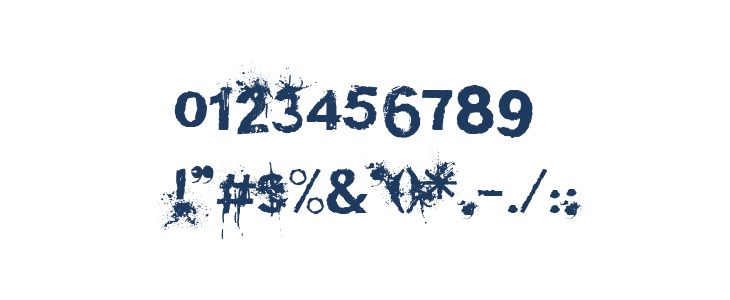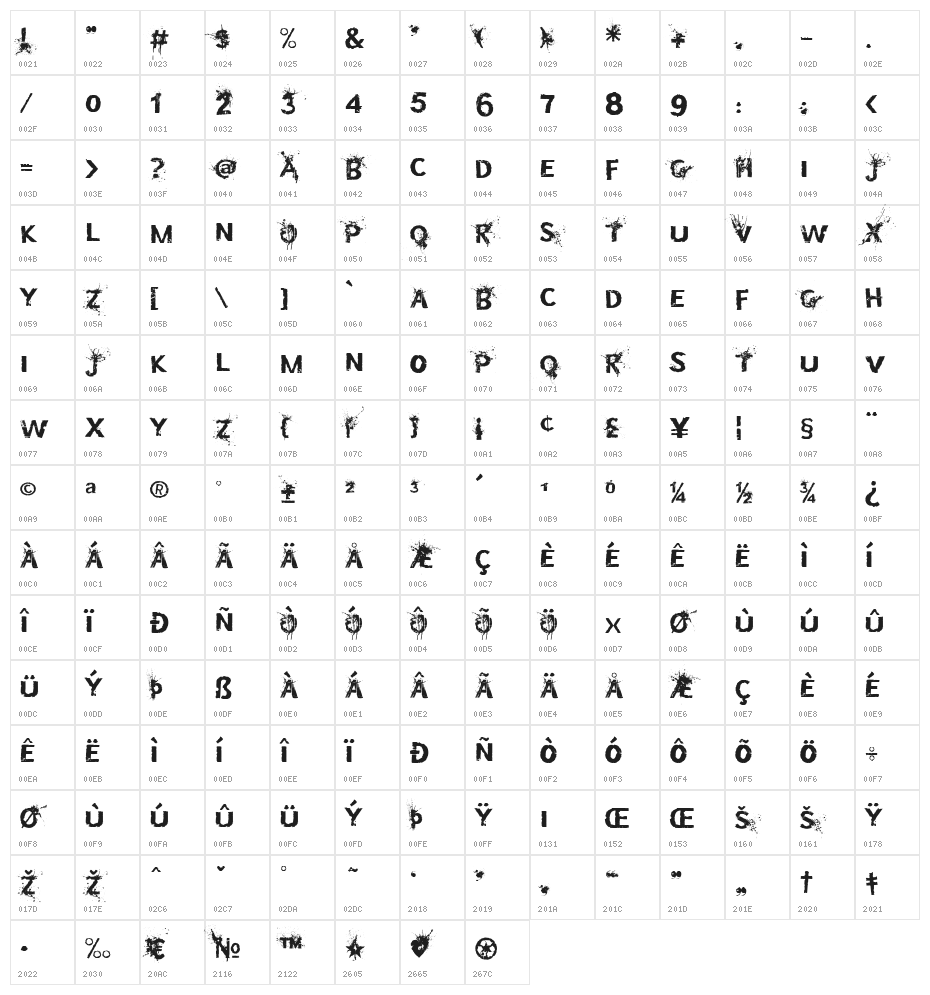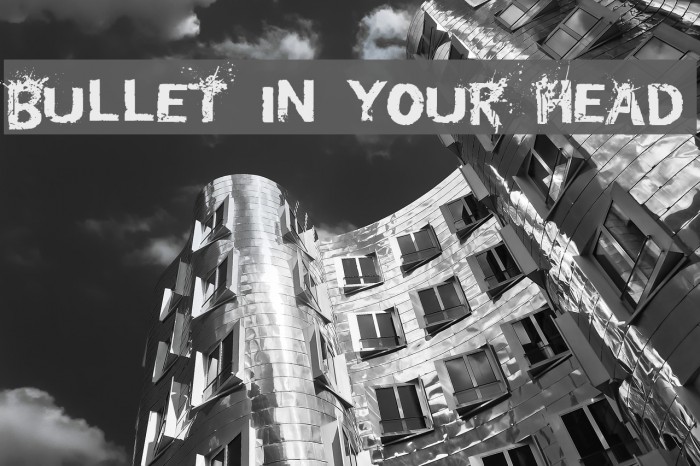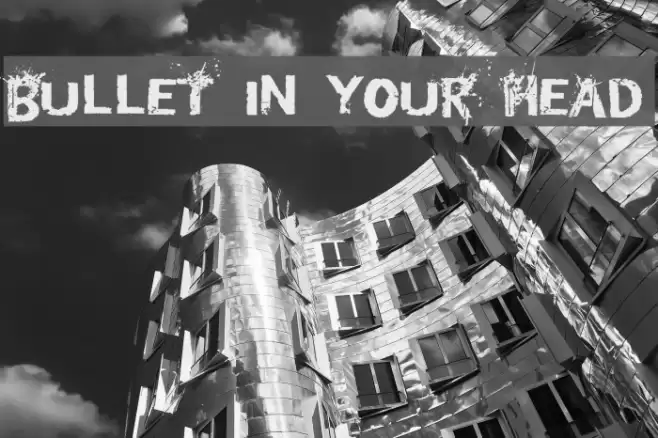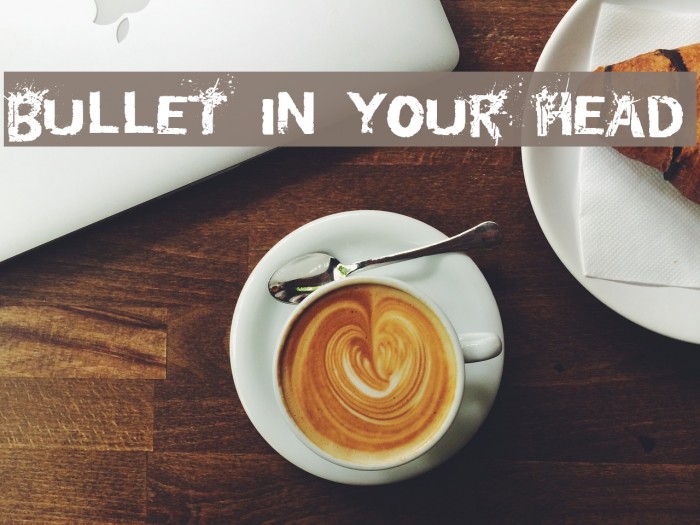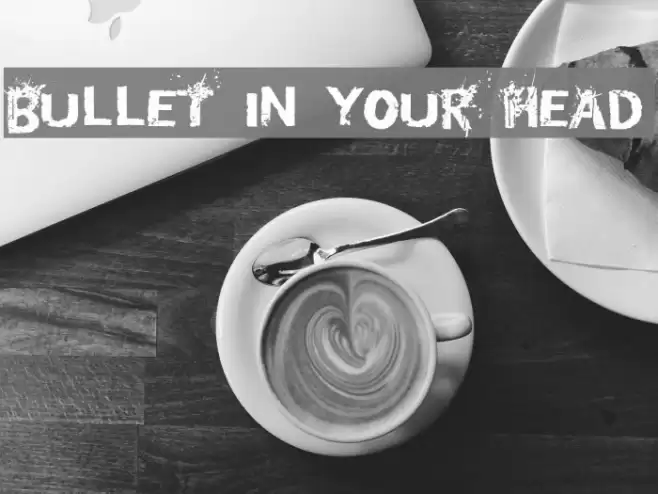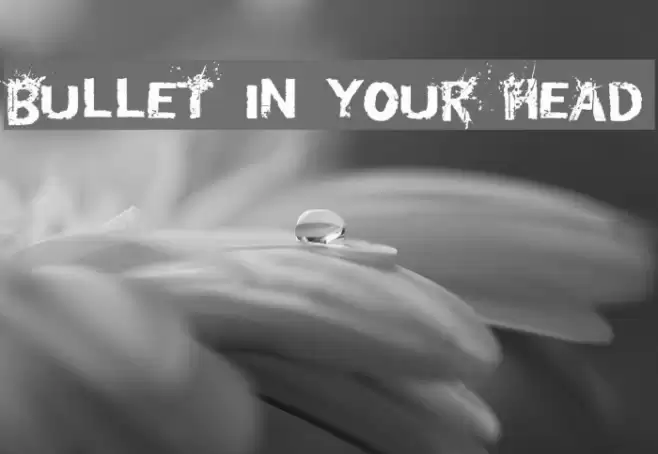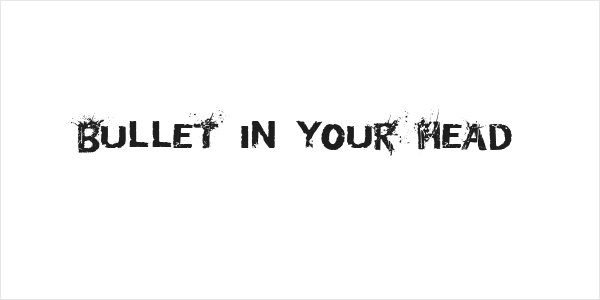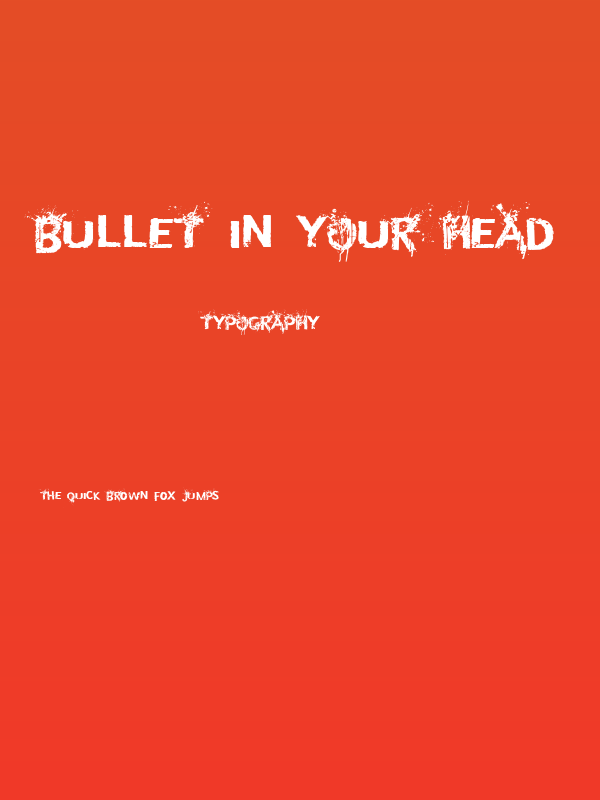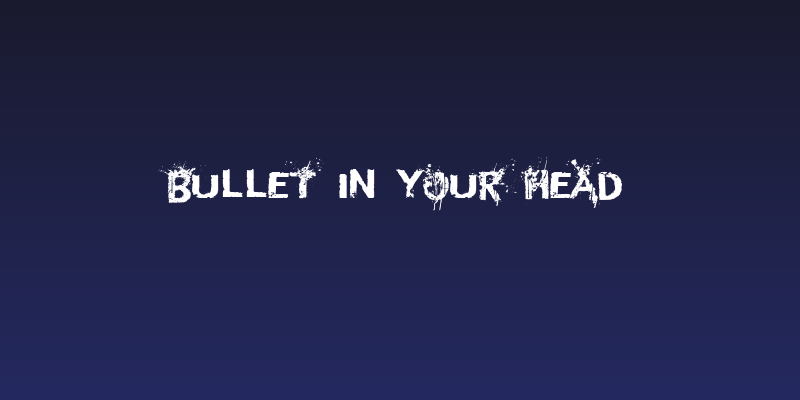
Bullet In Your Head Font
Bullet In Your Head Description
This font features a bold and distressed design, with each character appearing as if it has been splattered with ink or paint. The rough, textured edges and irregular shapes give it a gritty, urban feel. The uppercase and lowercase letters maintain a consistent style, with the splatter effect adding a chaotic and dynamic element. Numbers and special characters are equally bold and textured, making them stand out with the same rugged appearance. This font is perfect for projects that require a raw and edgy aesthetic.
| Proposed Projects | Ideal for album covers, posters, street art designs, and any project needing a raw, edgy look. |